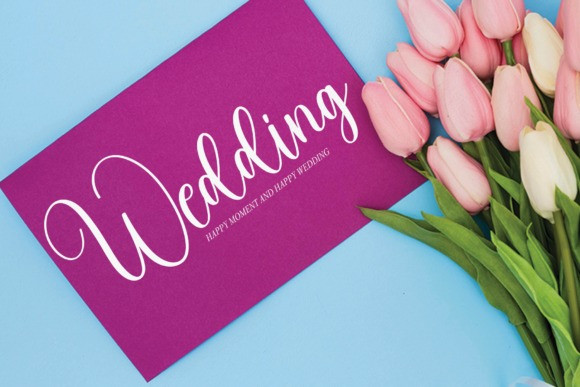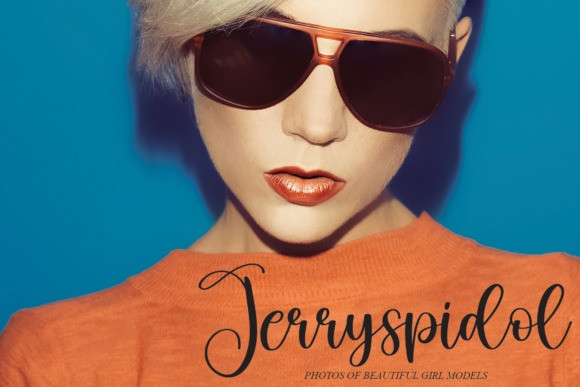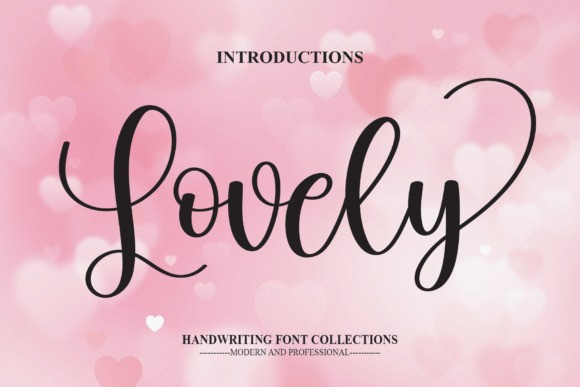
Lovely Font
Lovely Font is a romantic and sweet calligraphy typeface with characters that dance along the baseline. It will add a luxury spark to any design project that you wish to create!